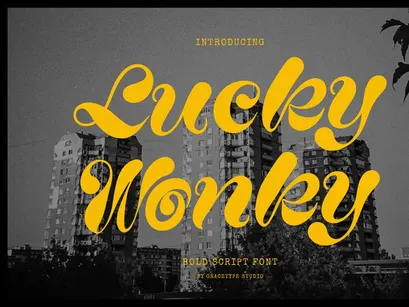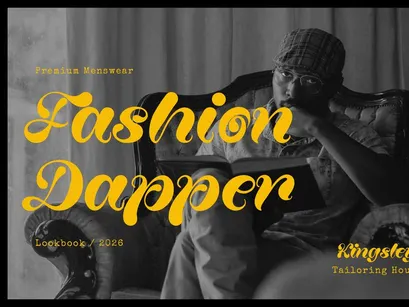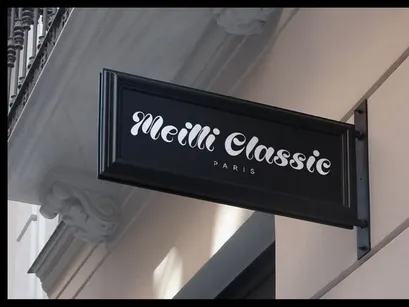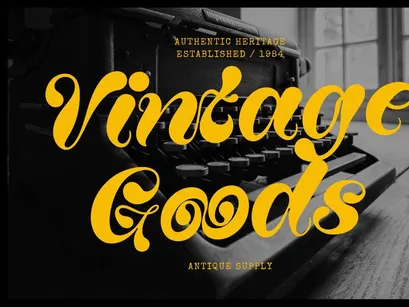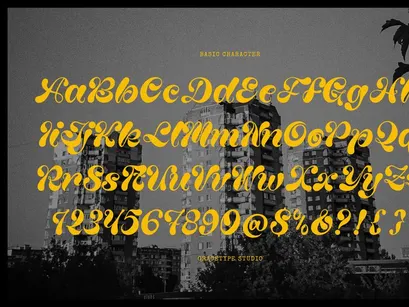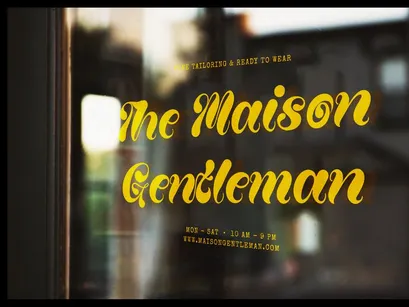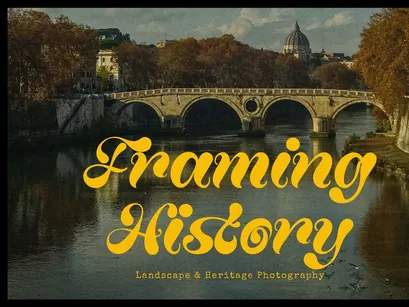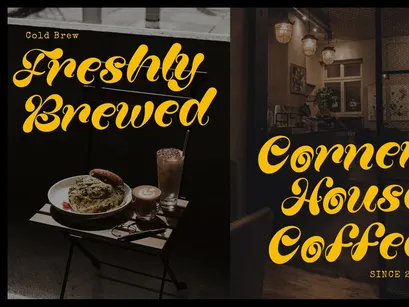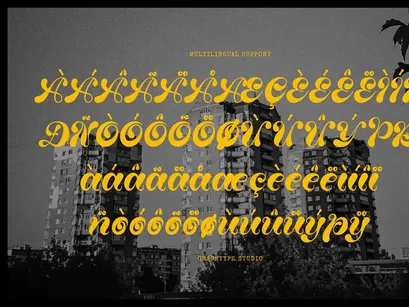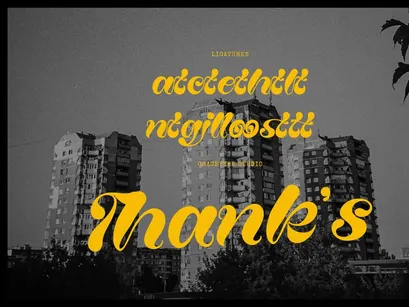
Lucky Wonky | Bold Script Font, from Gracetypestudio, suitable for any projects such as: logos, branding projects, homeware designs, product packaging, mugs, quotes, posters, shopping bags, t-shirts, book covers, name card, invitation cards, greeting cards, label, photography, watermark, special events, and all your other lovely projects that need a Script taste.